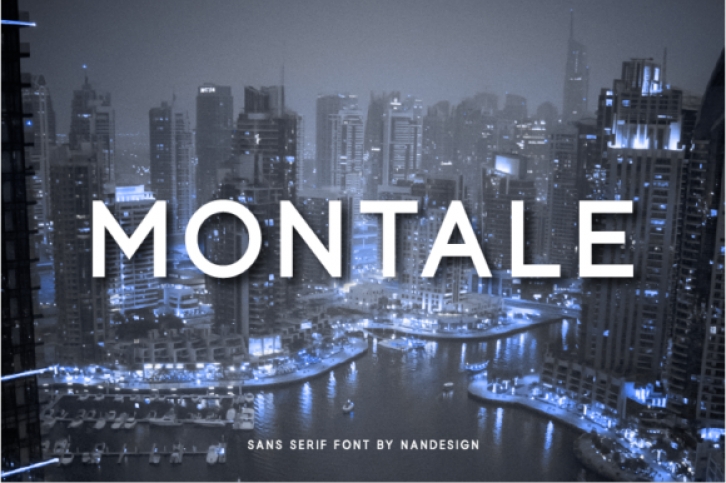
Montale is a simple and versatile sans serif font, created to complement every project you’re working on.
Use it to make beautiful headings, gorgeous invitations, stunning logos, and so much more!